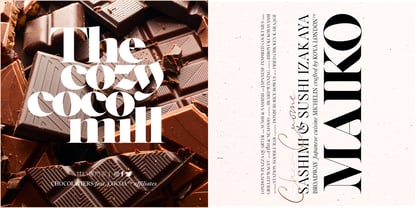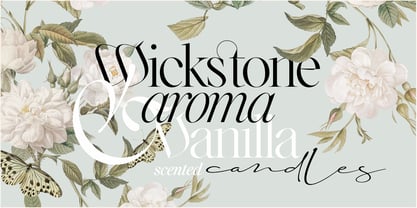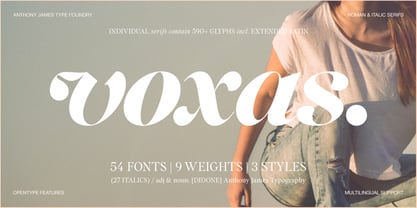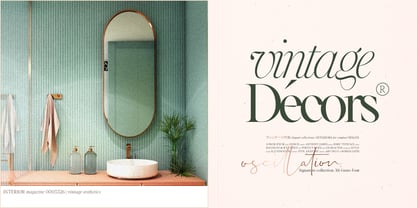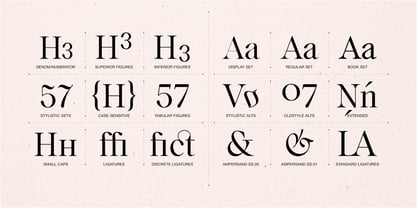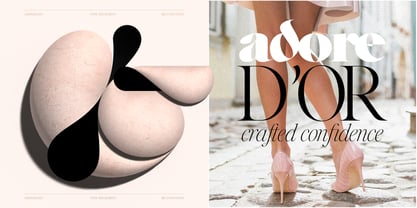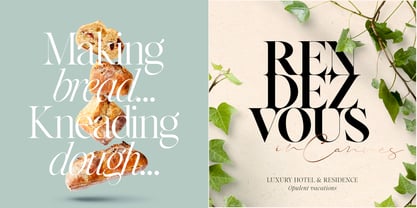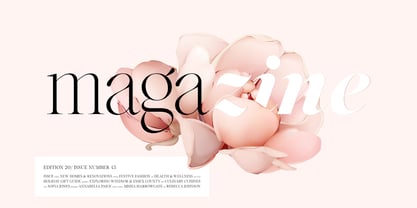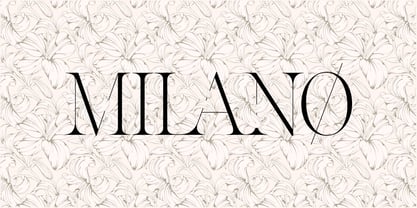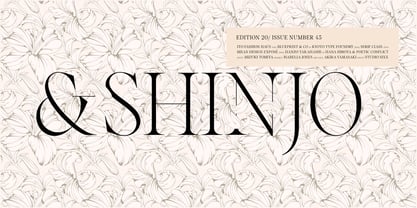
Voxas
by Anthony James
The Voxas Font Family was designed by Anthony James and published by Anthony James. Voxas contains 54 styles and family package options. More about this family
54 FONTS | 9 WEIGHTS | 3 STYLES Introducing our versatile modern serif font, includes elegant italics and a robust set of Opentype features. Refined letterforms defined by high-contrast strokes, well balanced bezier curves & a perfect continuity of weights. Housing 54 fonts (27 matching italics), encompassing endless weight combinations, making it a definitive choice for high-end logos and luxury branding. Great as both a commanding display face for bold headlines and a graceful companion for long-form text based features. For editorial purposes, the spacing is geared towards legibility as body text. For display purposes (fashion/magazine headings), we recommend reducing the letter spacing for a better aesthetic. 54 weights (27 italics) Regular / Book / Display 590+ Glyph Character Set incl. EXTENDED-LATIN Opentype features Small Capitals Questions regarding extended licensing, please don’t hesitate to get in touch, Thank you!
Manchester-based font foundry. Focusing on modern high-fashion aesthetics and experimentation. We specialise in serif based typography, with a love for Art Deco & Neoclassical Didone fonts. Our collection is defined by high-contrast strokes, pairing razor-thin hairlines with robust, confident stems inspired by the avant-garde, aimed at logos, branding & editorials.